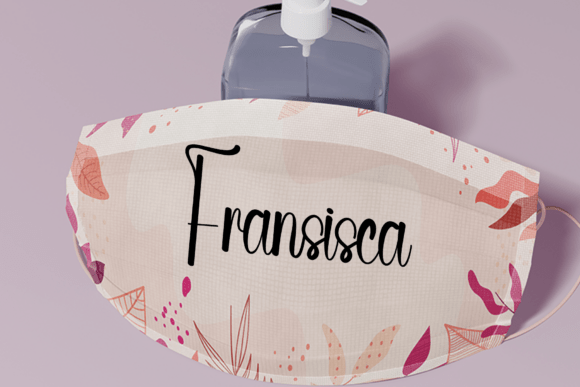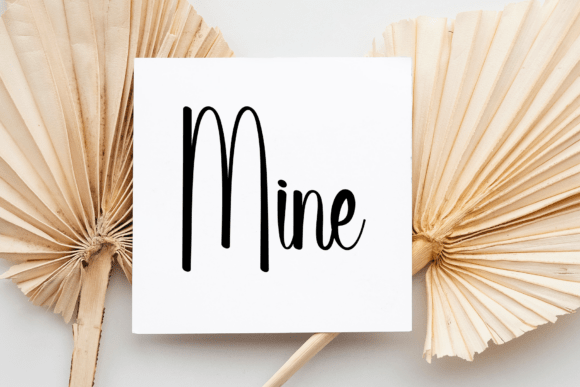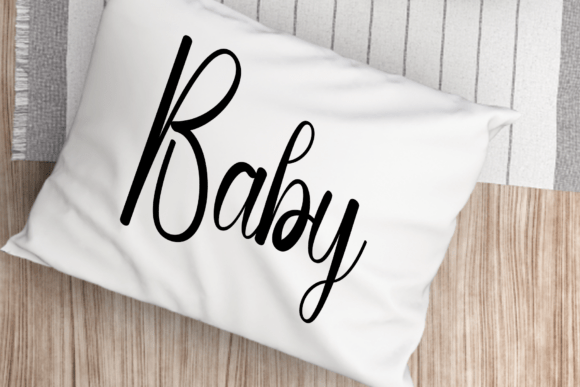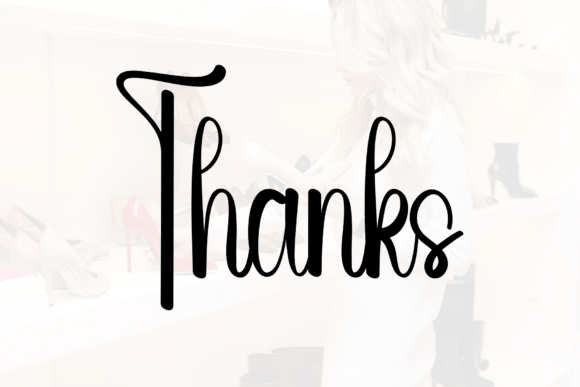
Discovering the Perfect Script: Butterdays Font
There’s something magical about stumbling upon the perfect font for a project. It’s like finding that one special ingredient that brings all the elements together. For designers, this moment is a game-changer. And for those who’ve been searching for that elusive handwritten feel, Butterdays Font is a revelation.
Butterdays Font is a charming handwritten font that exudes warmth and personality. Its smooth strokes and organic lines create a relaxed atmosphere, making it perfect for branding, invitations, and social media graphics. Whether you’re a seasoned designer or just starting out, this font is sure to become a go-to favorite.
With its unique charm and versatility, Butterdays Font is a valuable addition to any designer’s toolkit. Its ability to evoke a sense of heartfelt perfection makes it a must-have for any project that requires a touch of elegance and sophistication.
- Unique Characteristics: The Butterdays Font features a distinctive, handwritten style with a mix of modern and vintage elements, making it perfect for creative and artistic projects.
Butterdays Font Review
Butterdays Font is a whimsical, hand-drawn font that caught my eye with its unique charm ✨. The designer has successfully captured the essence of a vintage feel, reminiscent of classic children’s books. The font’s playful personality shines through in its quirky letterforms and subtle imperfections. I particularly appreciate how the font’s irregularities add character to text, making it stand out in designs.
However, there are a few areas where the font falls short ⚠️. Firstly, the font’s legibility could be improved, especially at smaller sizes. Some letters, such as ‘a’ and ‘e’, can be easily confused with one another. Additionally, the font’s width can vary significantly, which may cause alignment issues in certain layouts. Lastly, the font’s support for non-English languages is limited.
- ✨ Unique, hand-drawn feel
- ✨ Perfect for whimsical, vintage-inspired designs
- ⚠️ Limited legibility at smaller sizes
- ⚠️ Potential alignment issues due to varying letter widths
- ⚠️ Limited support for non-English languages
Overall, Butterdays Font is a great choice for designers looking to add a touch of whimsy to their projects. While it may have its limitations, the font’s charm and character make it a worthwhile addition to any design library.
Butterdays Font is ideal for use in creative projects, such as invitations, posters, and social media graphics. It’s also great for use in headings and titles to add a touch of elegance and sophistication.